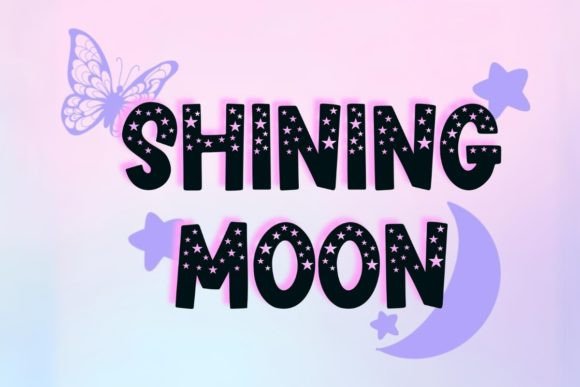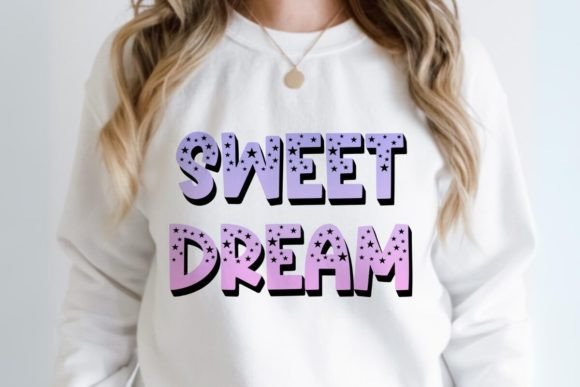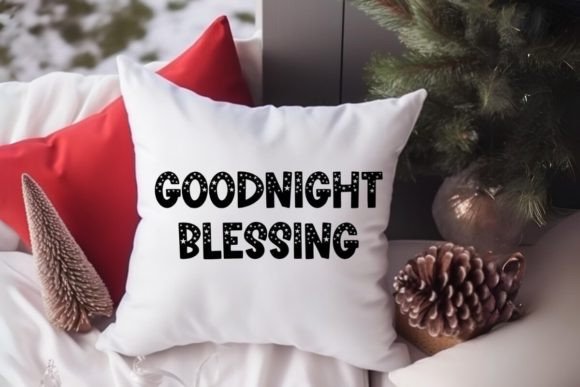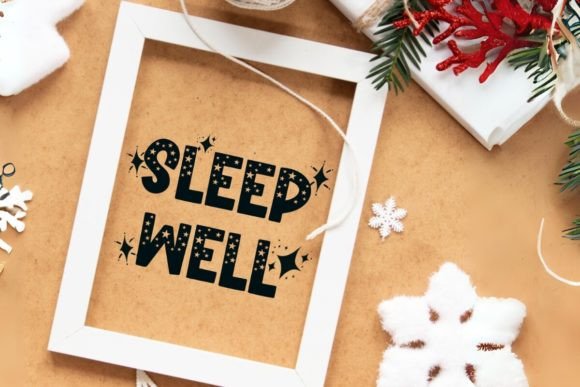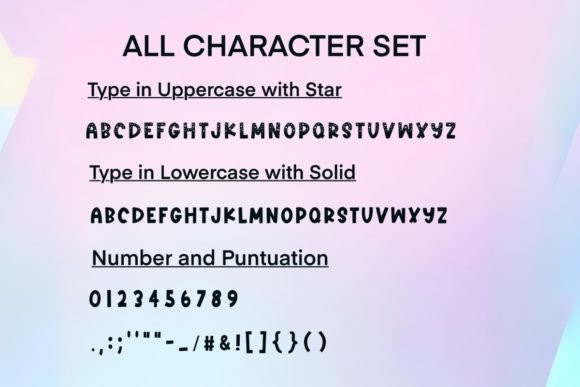
Introduction to Kingdom Night Font
Kingdom Night is a cute decorative font that uses block-bold letters adorned with stars shining.
Inspired by a winter night vibe, its casual charm will help you create lovely, shining designs It is perfect for creating a wide variety of designs, such as banners, social media posts, cards, content, mugs, t-shirt designs, stationery, bags, hats, pillows, stickers, and much more.